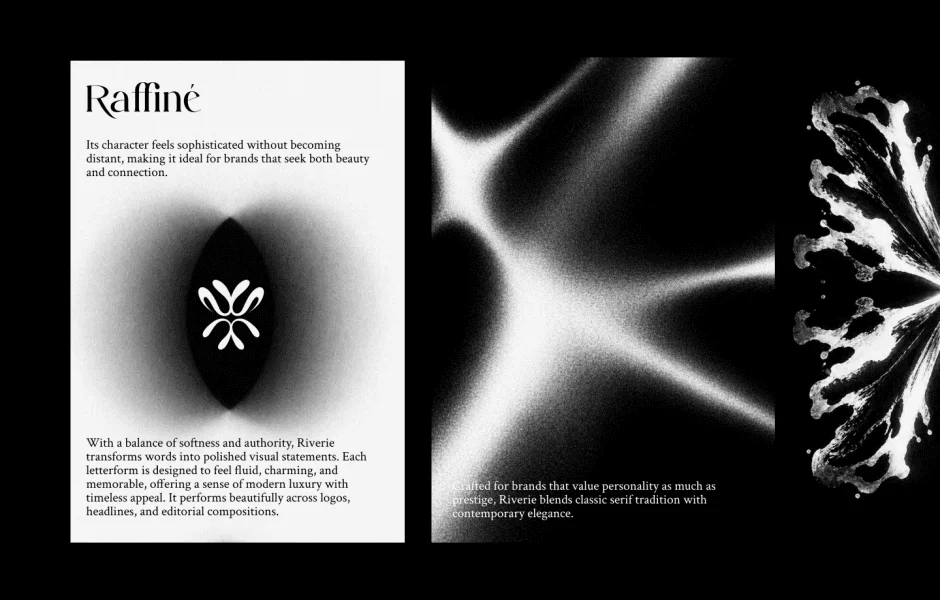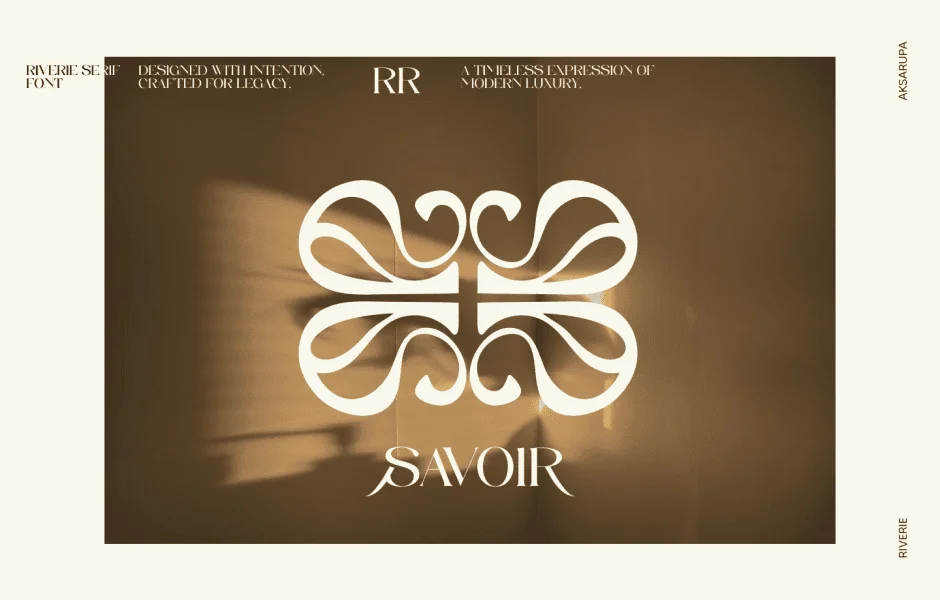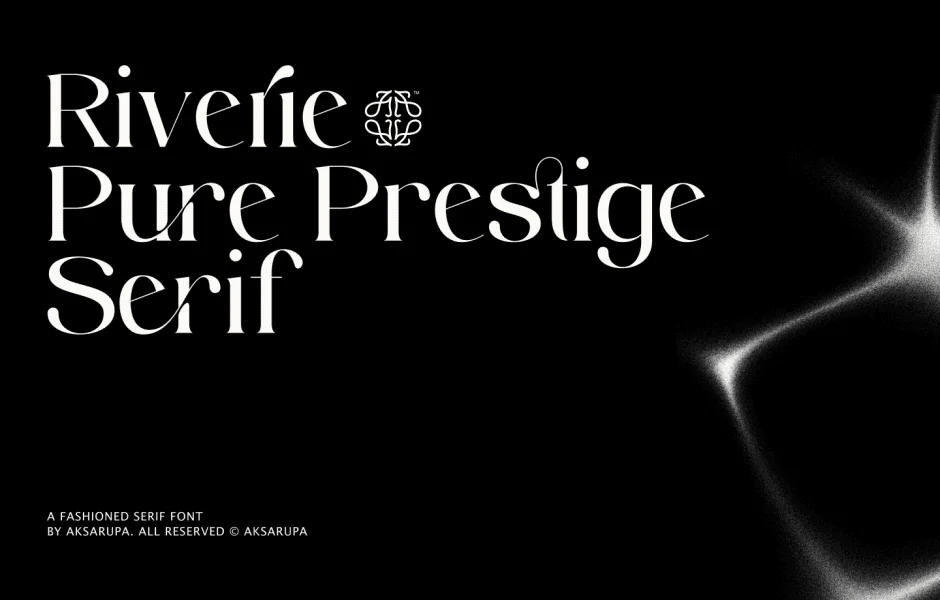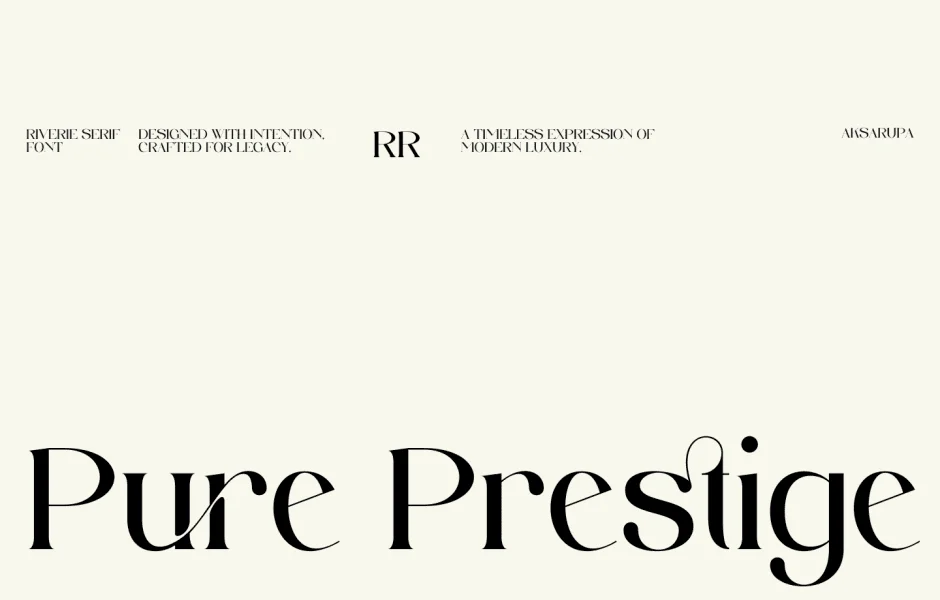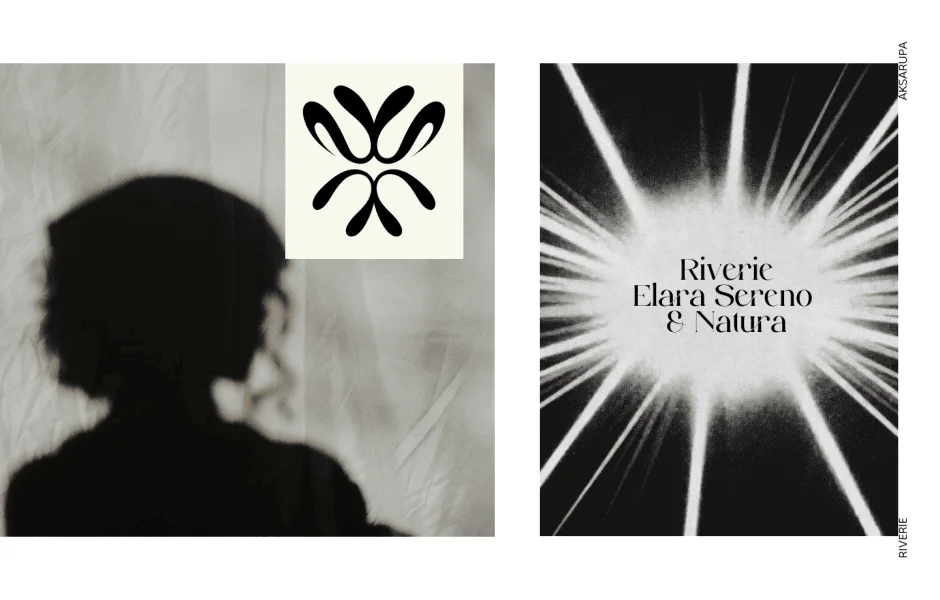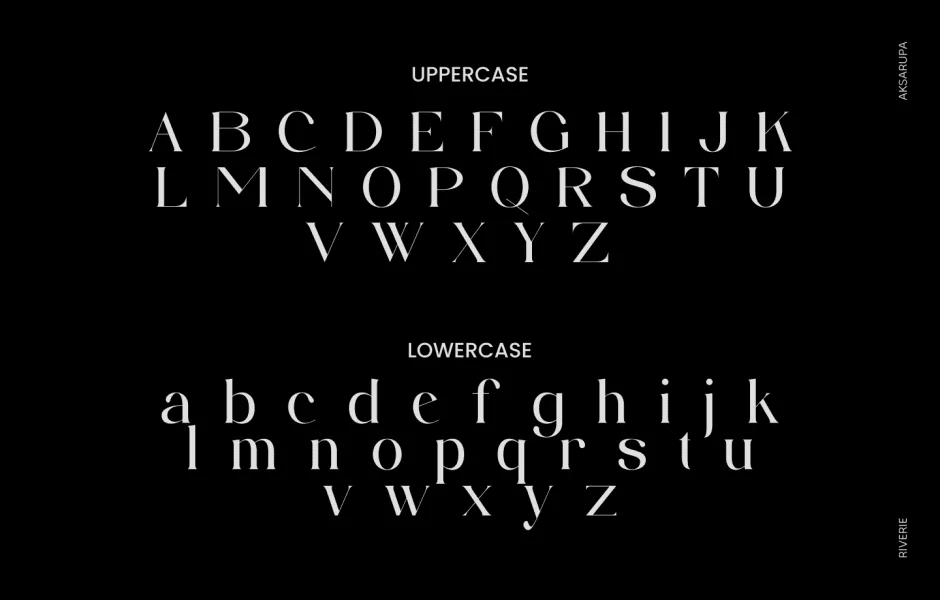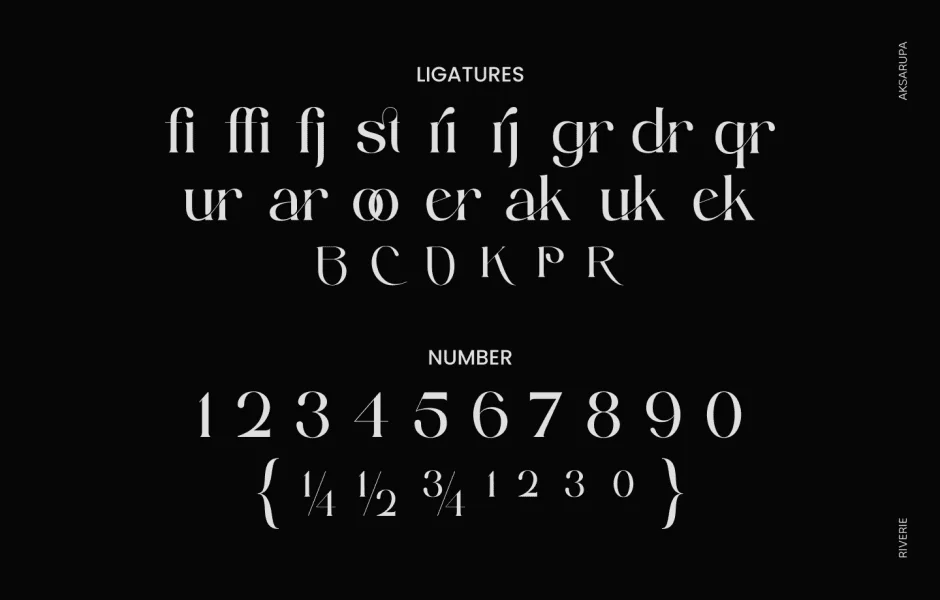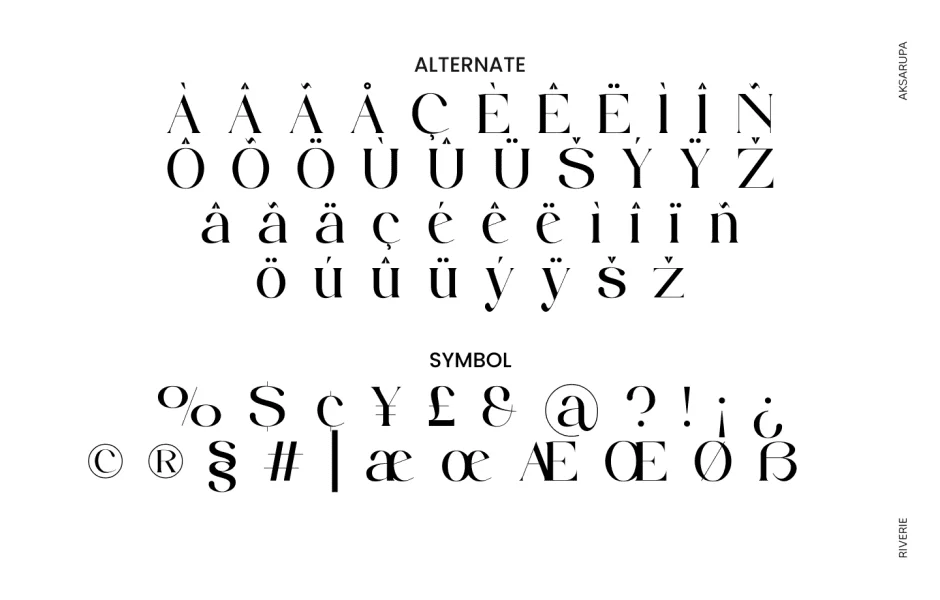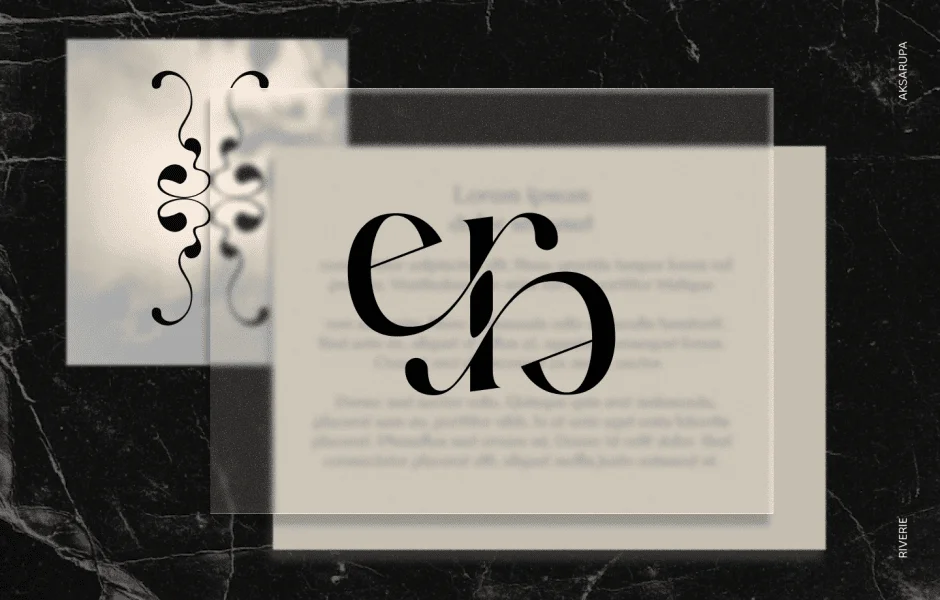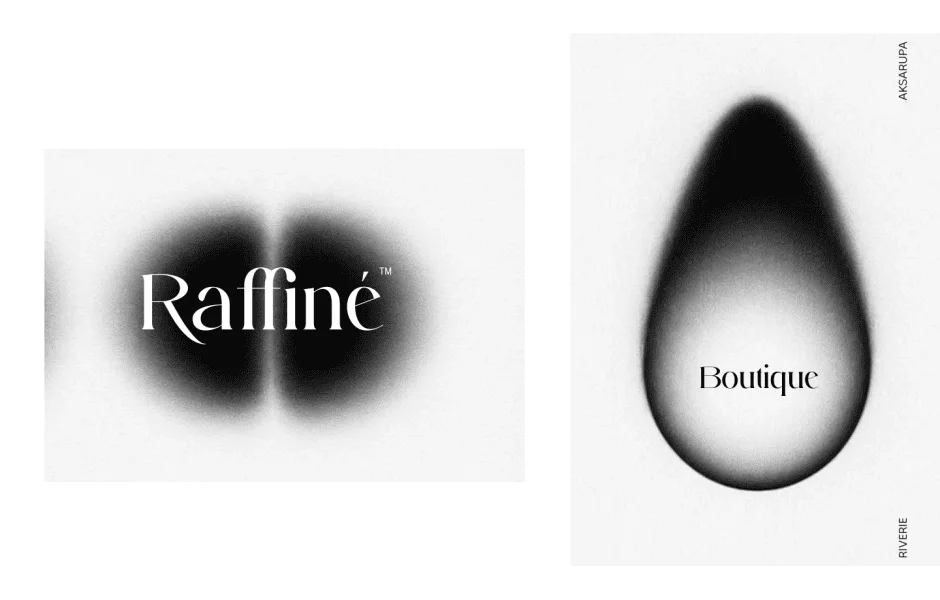
Riverie Font is a modern and awesome serif font with a natural style. This font is suitable for your current or classic design: Signature. Logo. Branding. Invitation. Blog Headline and many more.